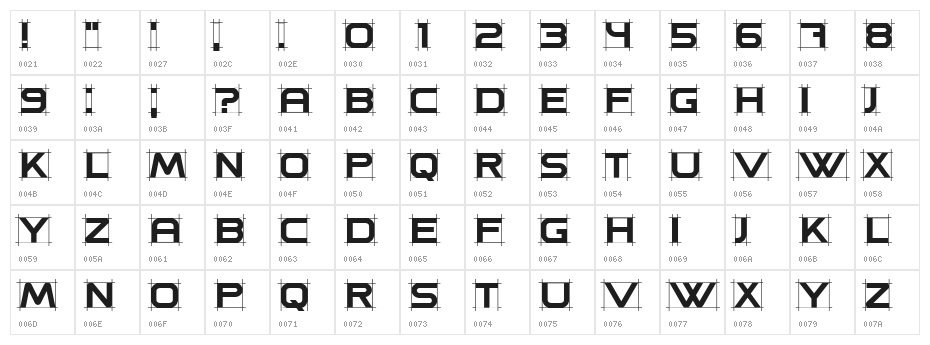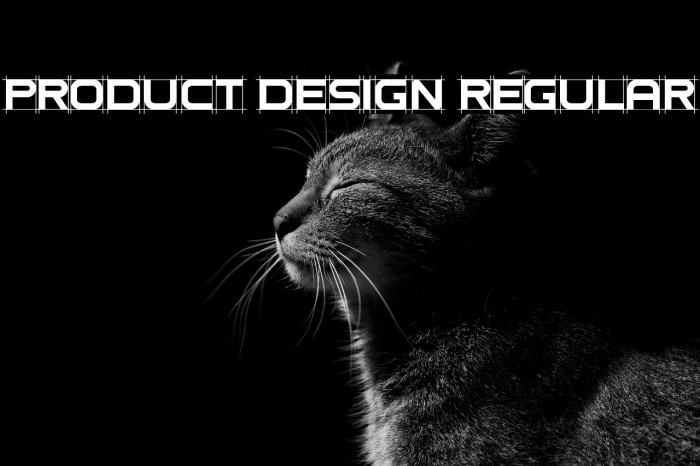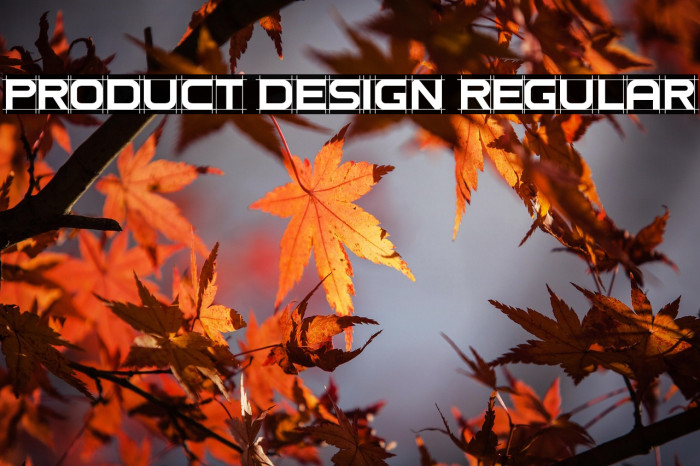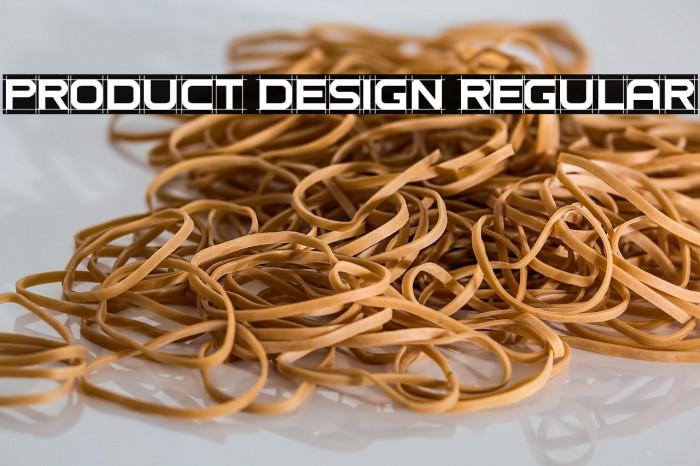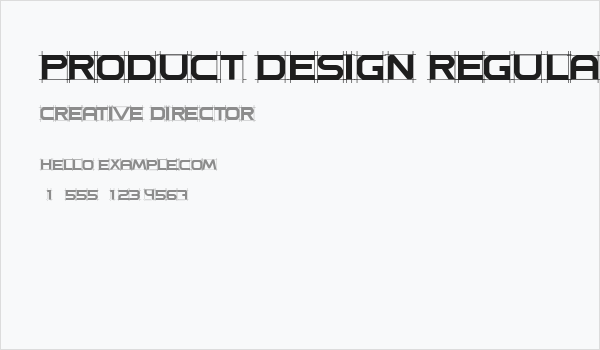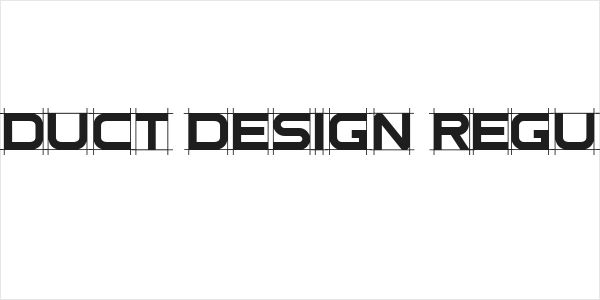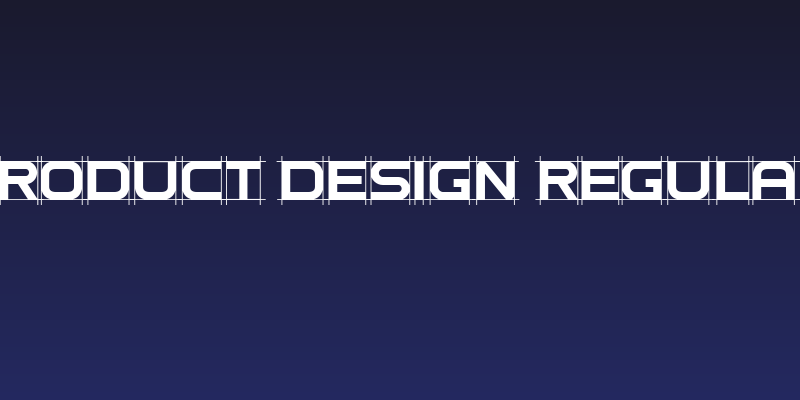
Product Design Regular Font
Product Design Regular Description
This font exhibits a modern, geometric design with a strong architectural influence. Each character is constructed with precise lines and angles, giving it a structured and technical appearance. The use of consistent stroke widths and sharp corners enhances its futuristic and industrial feel. The characters are enclosed within a grid-like framework, emphasizing precision and uniformity. This font is ideal for projects that require a clean, contemporary look with a hint of technical sophistication.
| Proposed Projects | Ideal for architectural designs, technical manuals, modern branding, and digital interfaces. |